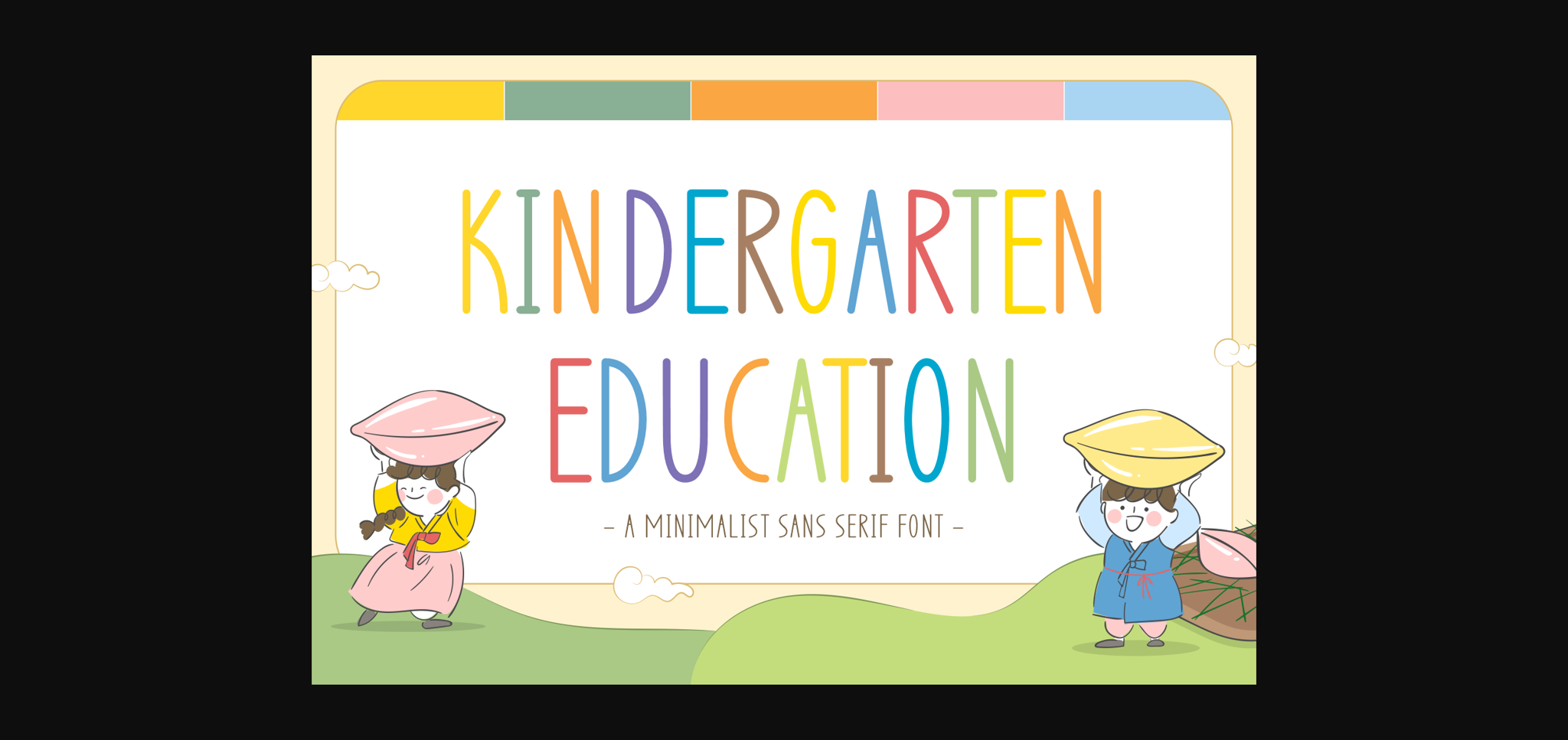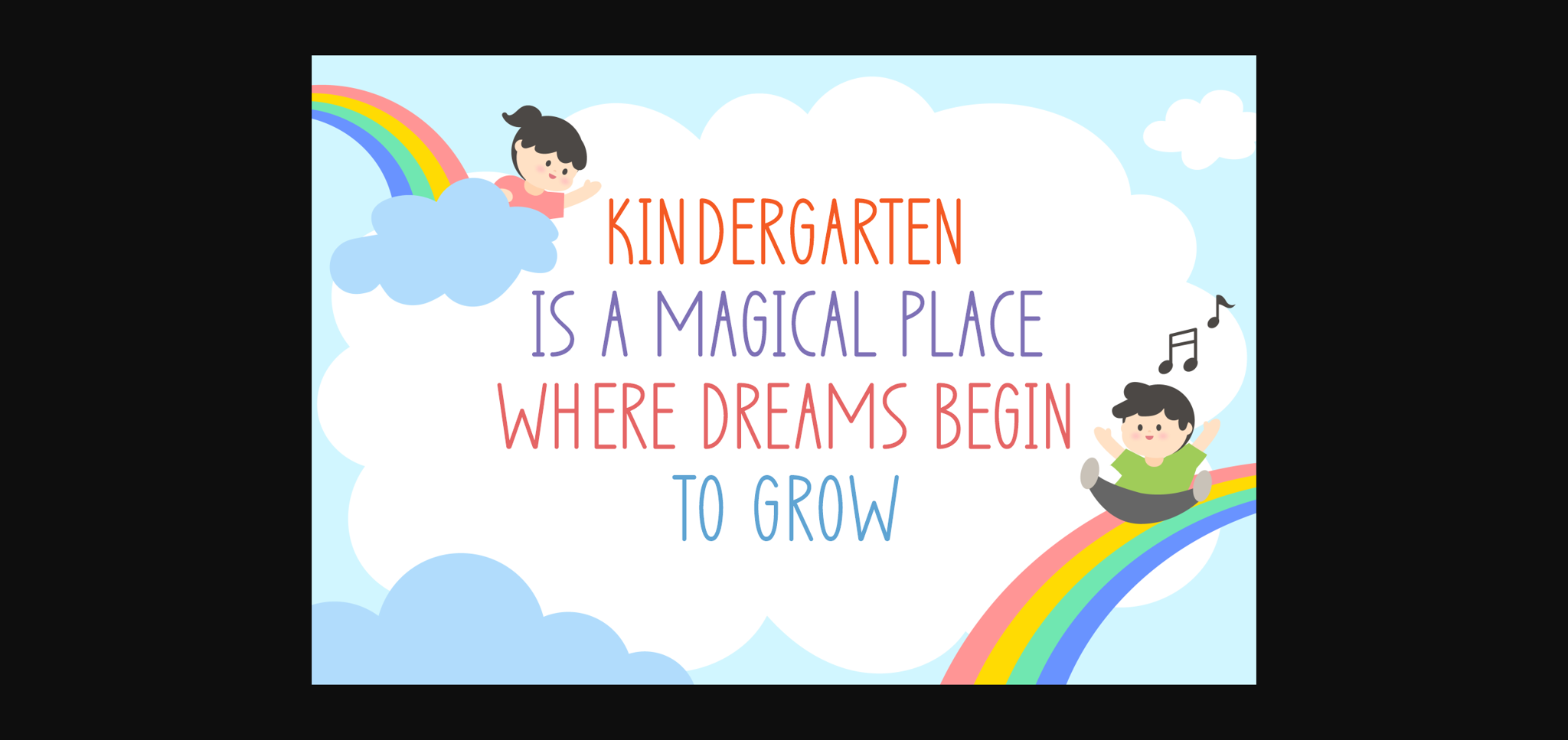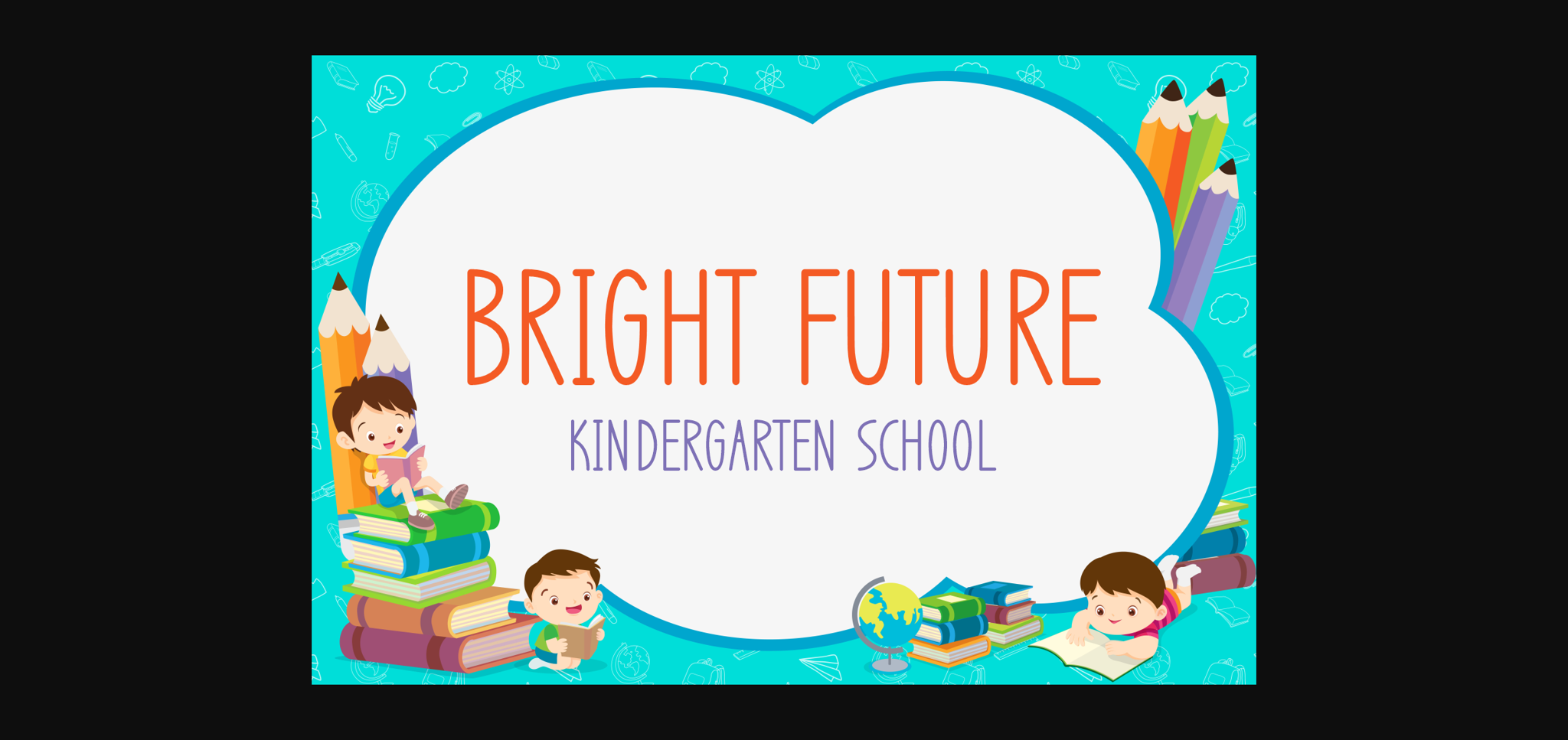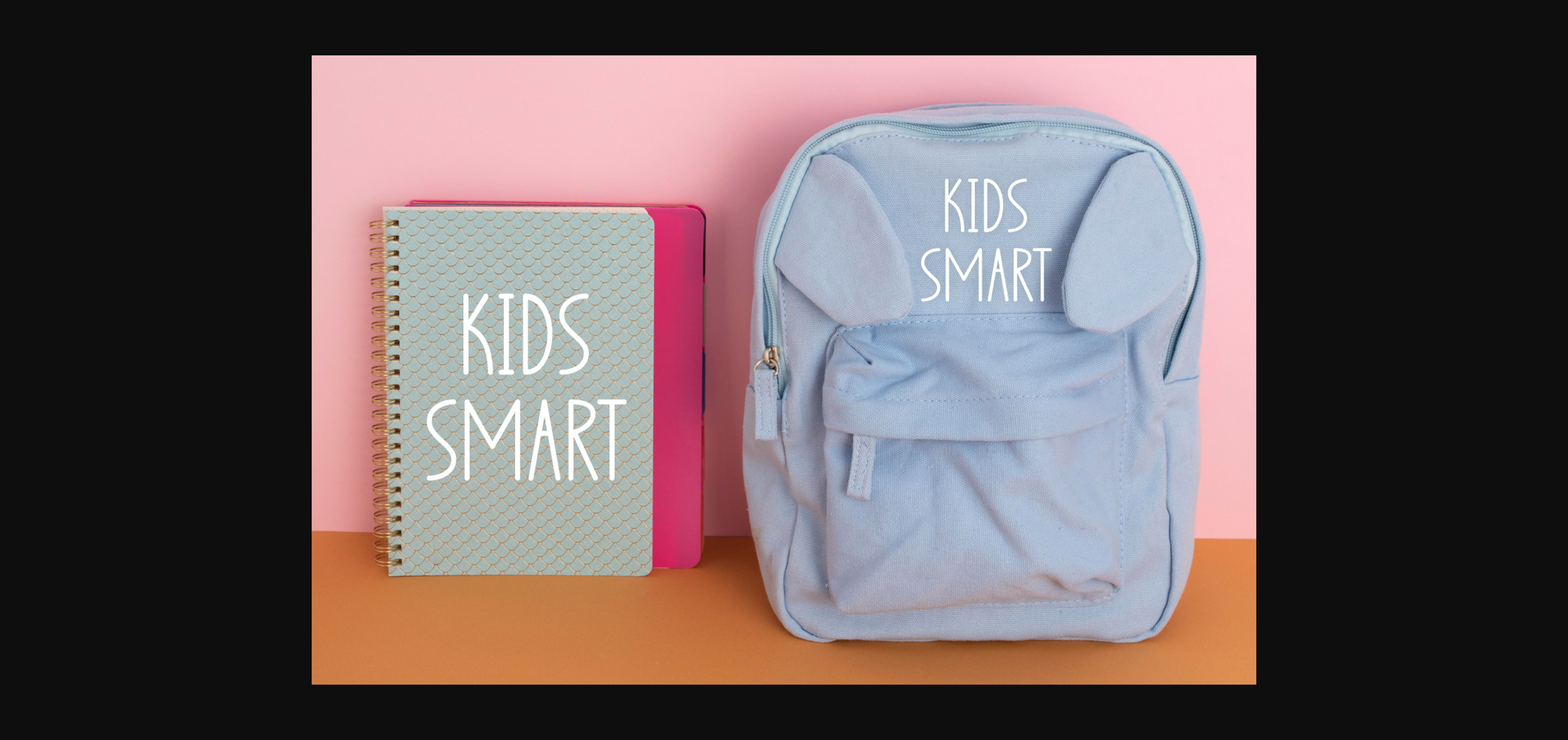
Kindergarten Education Font
About Kindergarten Education Font
Kindergarten Education is a cute and friendly sans-serif font. This versatile look will appeal to a wide range of crafty ideas, from letterheads and titles to stationery.